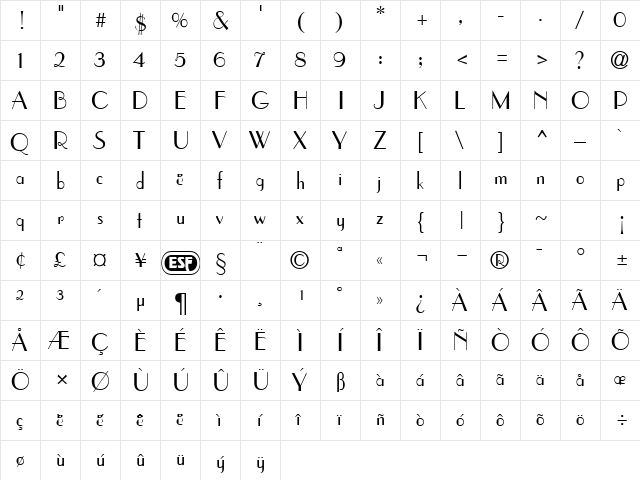
Hafnium Normal
Design Context for Hafnium Typeface
Hafnium is a composed and adaptable typeface that performs quietly and consistently across a wide range of design contexts.